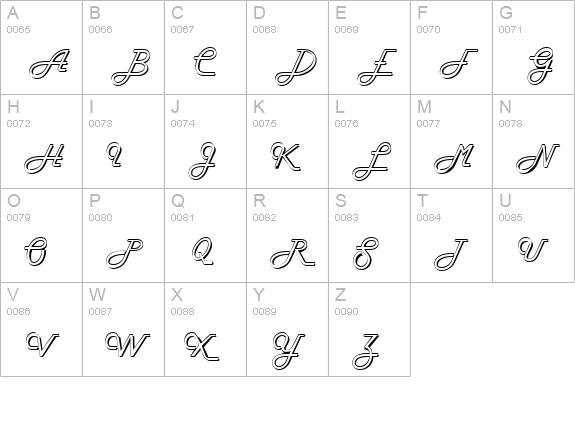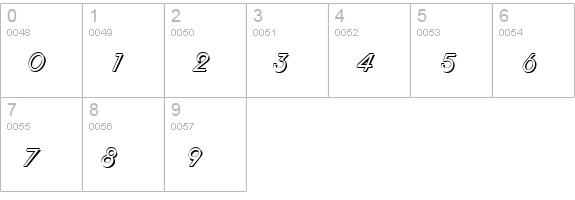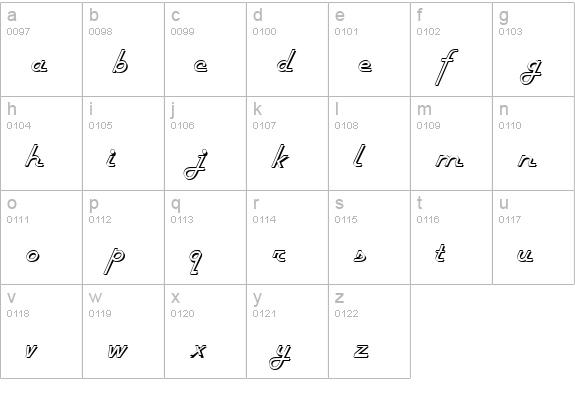
FiftiesHollow Font Details
FiftiesHollow font is a stylish and retro typeface inspired by the bold and dynamic typography of the 1950s era. Its sleek lines and sharp edges give it a classic yet modern feel, making it perfect for a wide range of design projects. This font is perfect for adding a vintage touch to your designs, whether for posters, logos, branding, or any other creative endeavor. The best part about FiftiesHollow font is that it is completely free to download at FontsMarket.com. This means you can easily access this eye-catching font and use it in your projects without any cost. With its timeless design and versatile applications, FiftiesHollow font is sure to become a staple in your font library. Get your hands on this fantastic font today and start creating stunning designs with a touch of nostalgia.